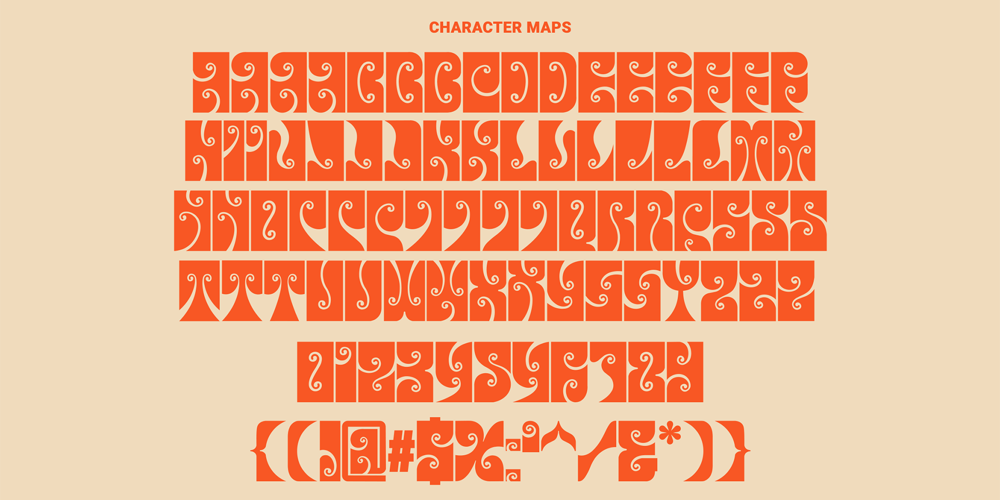
Serenity Retro Font Family was designed by Ferry Ardana Putra and published by Ferry Ardana Putra. Serenity Retro contains 6 styles and family package options. Introducing “Serenity” – a captivating vintage font that elegantly blends the charm of yesteryears with a contemporary flair. With its distinctive squared appearance, “Serenity” pays homage to the classic typography of vintage eras while embracing modern design sensibilities. This font is a visual journey that invites you to explore the fusion of timeless aesthetics and innovative creativity.